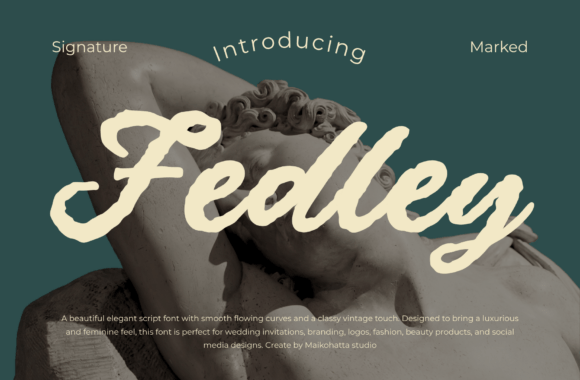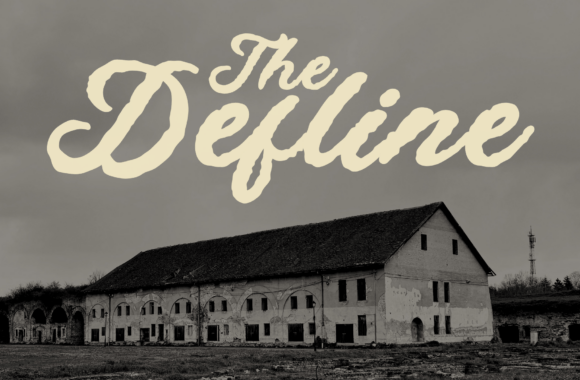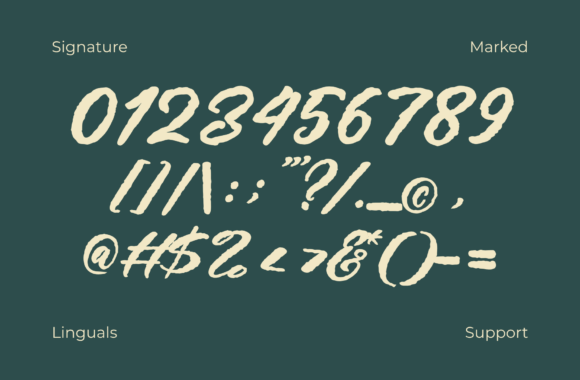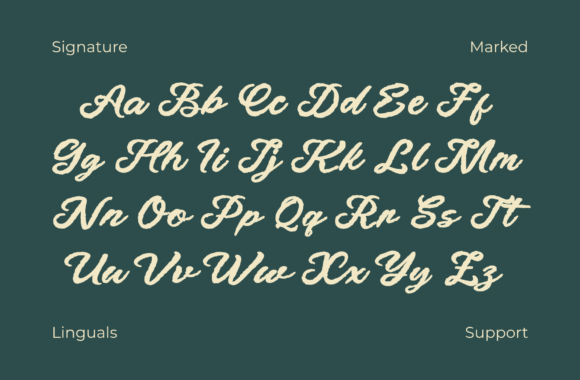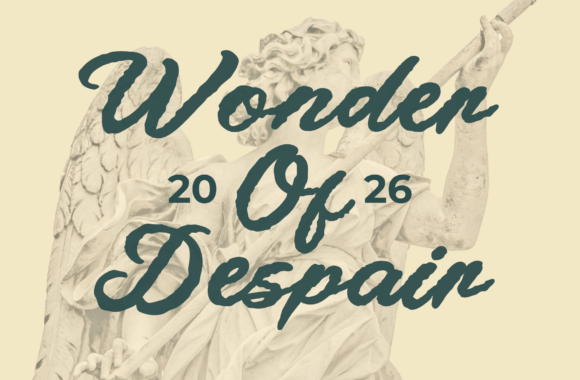
Fedley Script Fonts
Fedley transcends standard scripts by merging the kinetic energy of hand-drawn ink with a polished, high-fashion sensibility. It is an exercise in lyrical motion, defined by its sweeping arcs and a weight that feels both grounded and ethereal.
Crafted for the discerning creative, this typeface serves as a versatile anchor for premium branding, couture-inspired logos, and evocative stationery. It brings a bespoke, human touch to beauty aesthetics and editorial layouts, ensuring every word feels like a curated signature. With Fedley, your projects inherit an atmosphere of understated opulence and timeless charm, maintaining a perfect balance between artistic flair and sharp legibility.